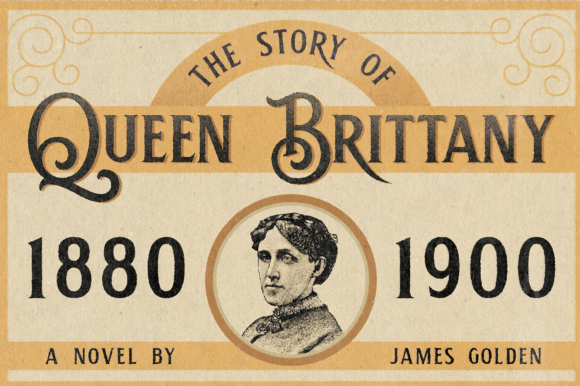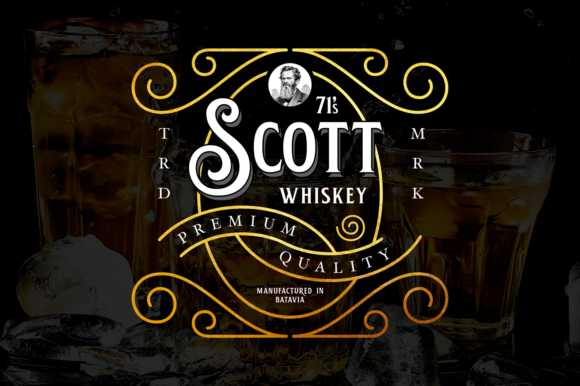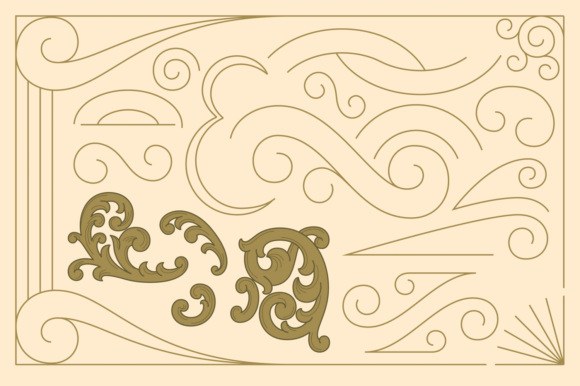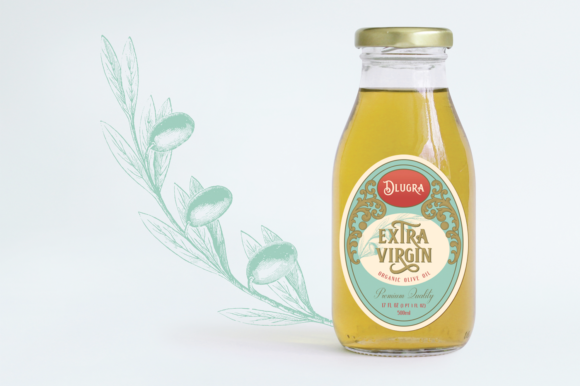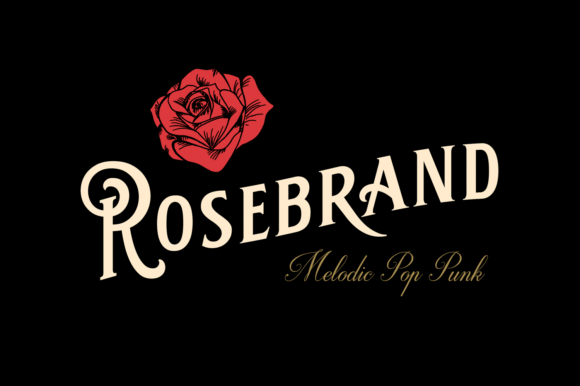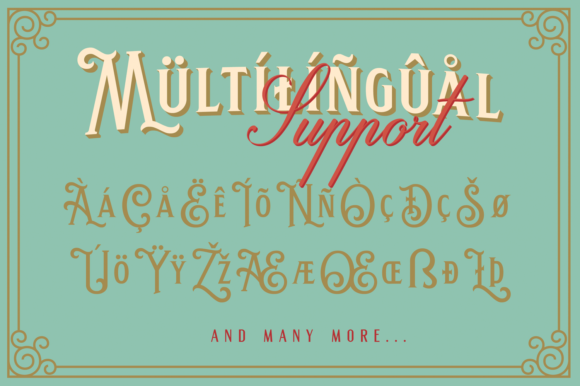
Introduction to Hemera II Font
Hemera II is a sophisticated vintage victorian era font, inspired from the old advertising and classic sign back in circa 1800 – 1900s.
Perfectly fit for your vintage vibes and classic touch on any branding works Logo, badges, label, headline, retro decoration, you name it.